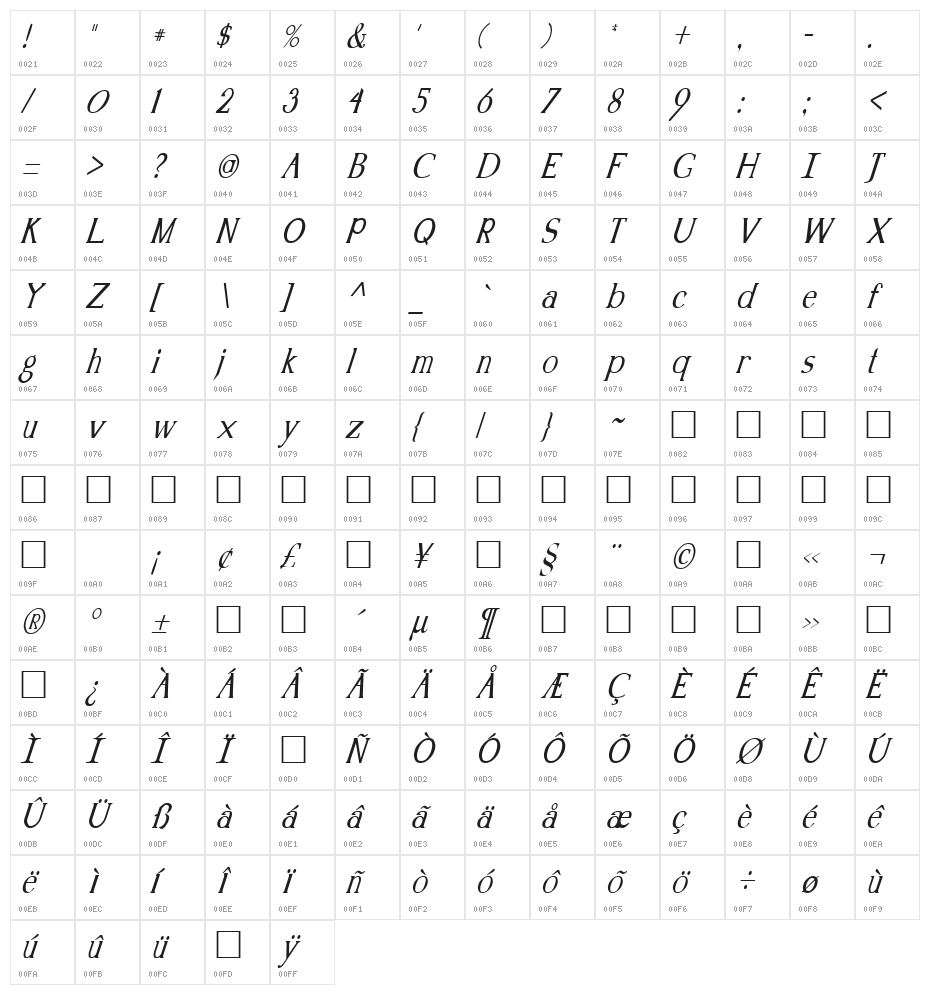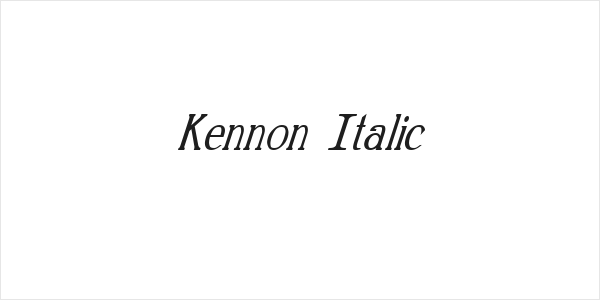
Kennon Italic Font
Kennon Italic Description
This font features a sophisticated and elegant italic style, characterized by its smooth, flowing lines and slight slant to the right. The letterforms are well-defined with a moderate contrast between thick and thin strokes, giving it a refined and classic appearance. The uppercase letters are tall and commanding, while the lowercase letters maintain a consistent and harmonious flow. The numerals are clear and distinct, ensuring readability. Special characters are thoughtfully designed to complement the overall aesthetic, making this font versatile for various applications.
| Use Case | Headlines, Logos, Editorial design |
| Proposed Projects | Ideal for projects requiring a touch of elegance, such as wedding invitations, luxury branding, editorial design, and high-end product packaging. |